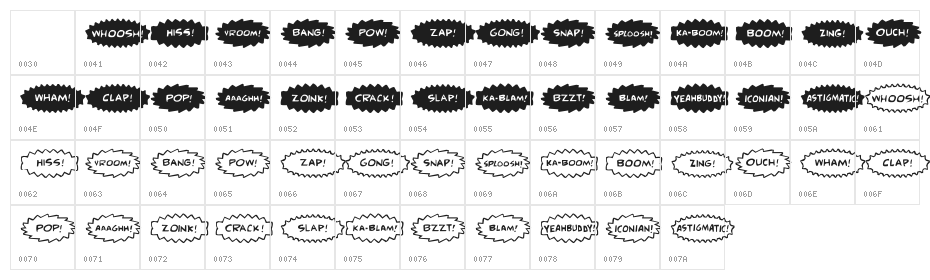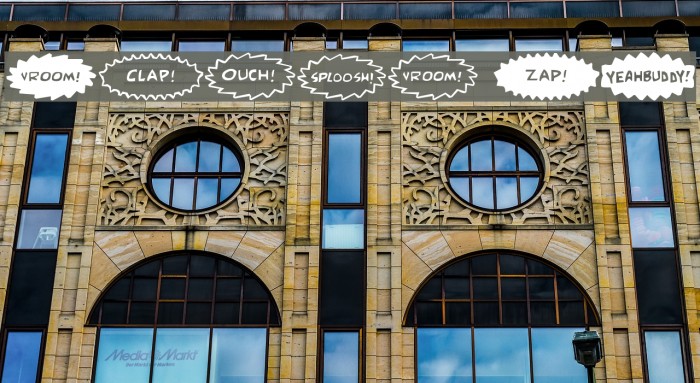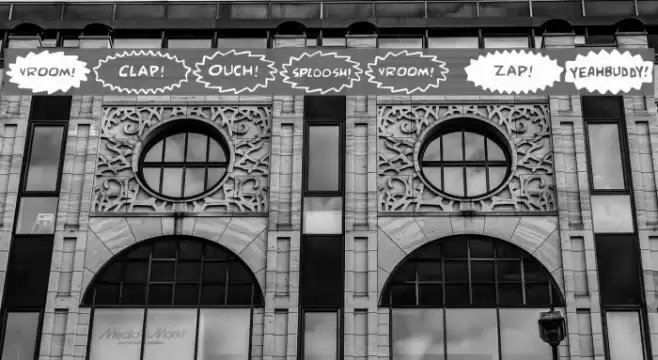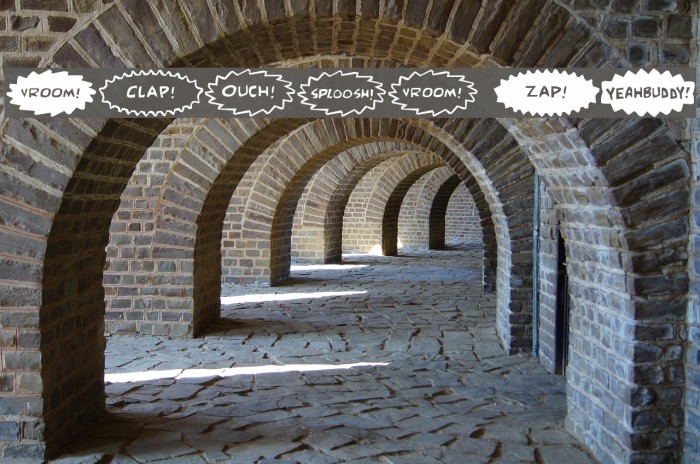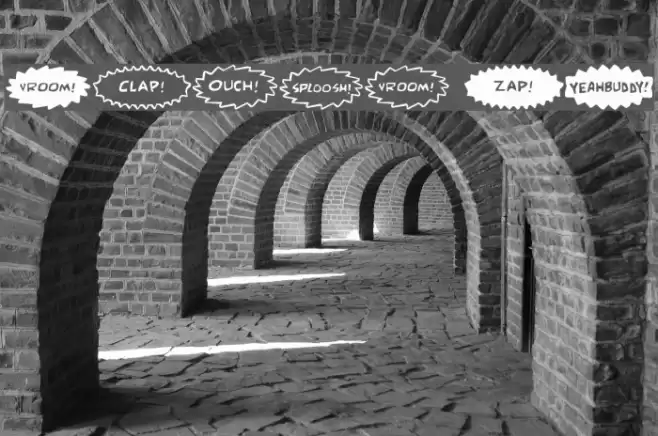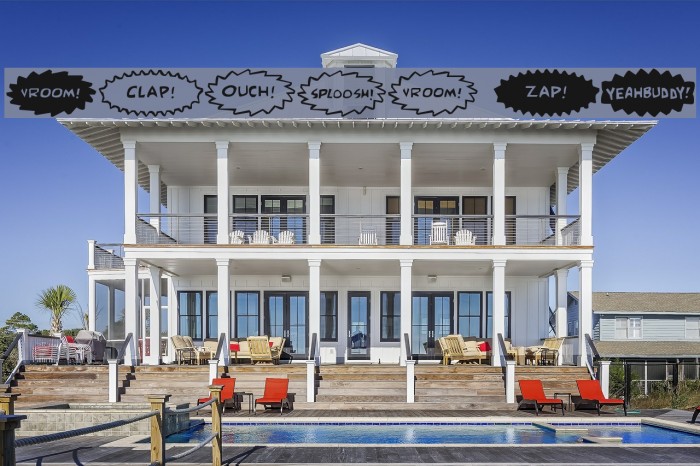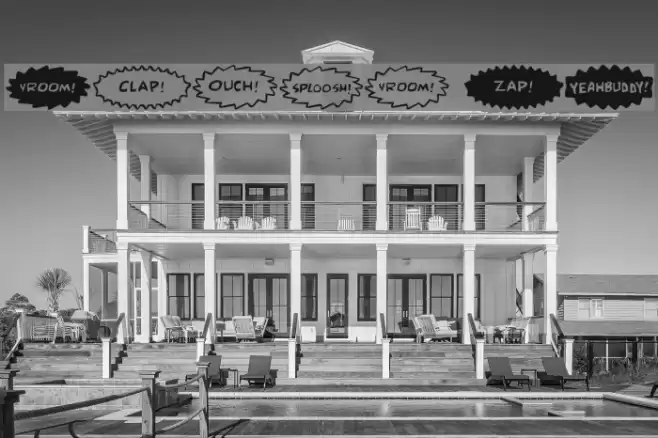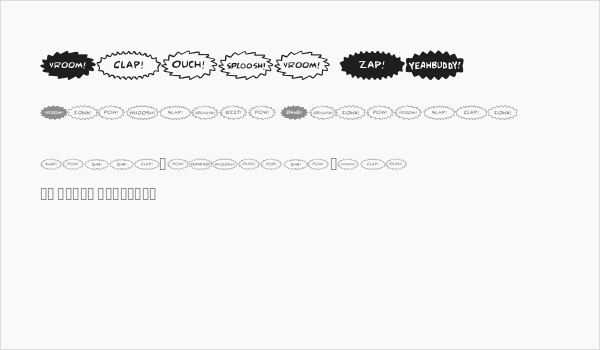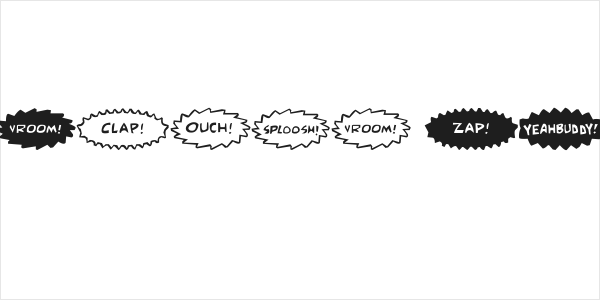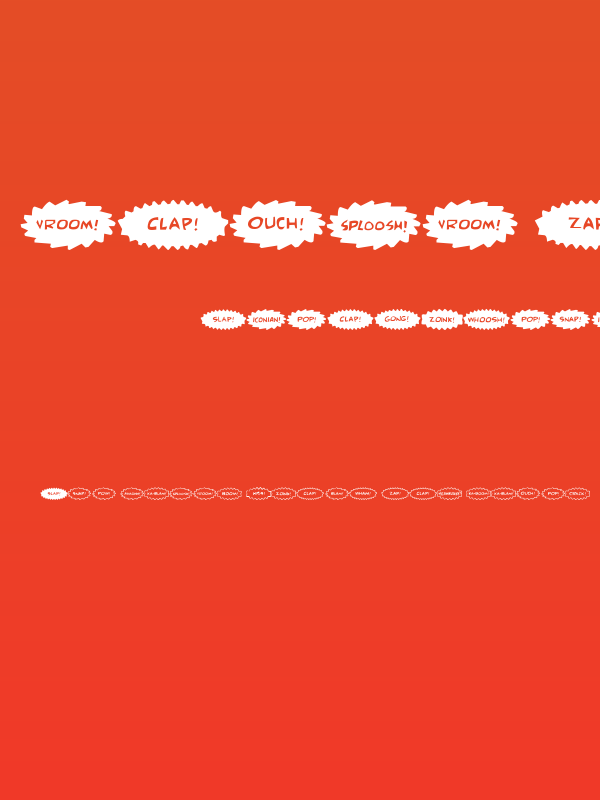
Comic FX Font
Comic FX Description
This font is designed to capture the dynamic and energetic style often associated with comic book sound effects. Each character is enclosed in a jagged, explosive shape, reminiscent of classic comic book onomatopoeia. The bold, uppercase letters are crafted to convey action and impact, making them ideal for dramatic expressions. The font's playful and exaggerated style is perfect for adding a sense of excitement and movement to any design. The characters are evenly spaced, ensuring readability while maintaining the chaotic aesthetic typical of comic book art.